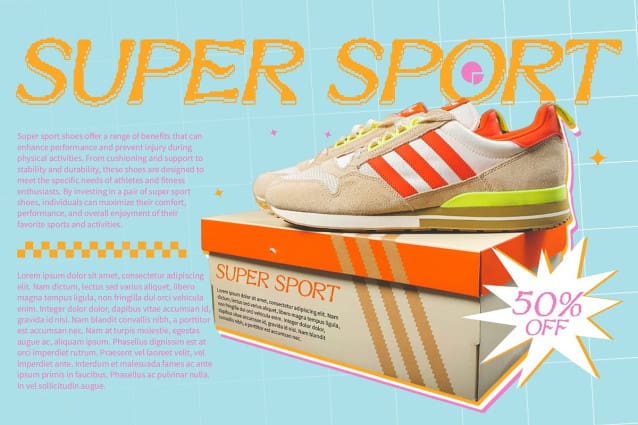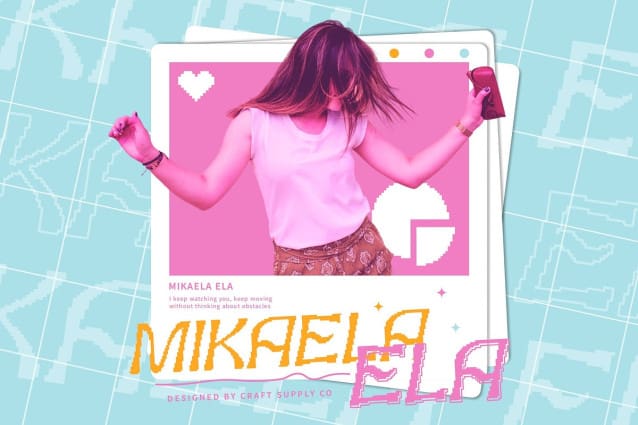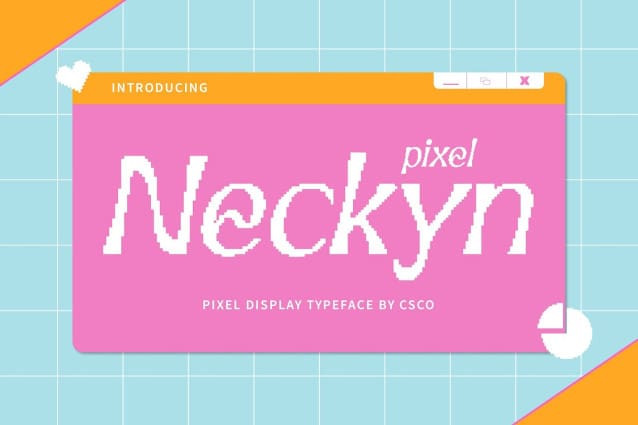
Neckyn Pixel Font
Neckyn Pixel Font is a display font that exudes beauty and elegance. Its sleek, modern look combined with pixel vibes gives your designs a unique and sophisticated appeal, making them stand out from the crowd.
With Neckyn Pixel, you get a font that is both modern and stylish. Its pixel-inspired design adds a touch of nostalgia to your designs, while its clean lines and contemporary look keep them fresh and current.
Neckyn Pixel is perfect for projects that require a font that grabs attention. Whether you’re designing a poster, logo, or website, this font is sure to make an impact and leave a lasting impression on your audience.
Despite its pixel vibes, Neckyn Pixel is highly versatile and can be used in a variety of design projects. Its unique blend of beauty, modernity, and pixel vibes makes it a standout choice for designers looking to create engaging and memorable designs.